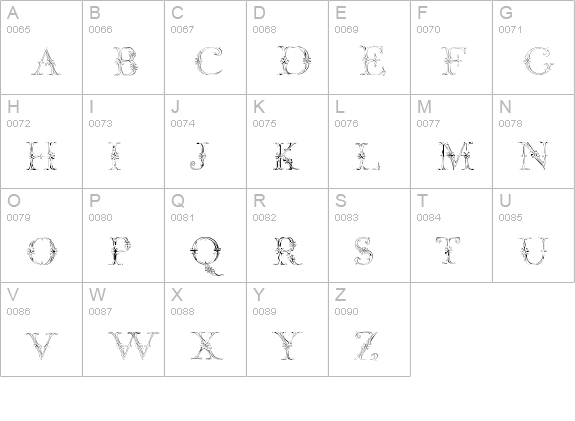
Jaggard Two Font Details
Introducing Jaggard Two, a captivating and versatile font that will leave a lasting impression on any design project. With its unique blend of modern and vintage aesthetics, Jaggard Two is the perfect choice for those seeking a font that stands out from the crowd. This remarkable typeface boasts a wide range of weights and styles, allowing for endless creative possibilities. Whether you're designing a logo, crafting a captivating headline, or creating eye-catching social media graphics, Jaggard Two has you covered. What sets Jaggard Two apart is not only its stunning visual appeal but also its accessibility. This incredible font is freely available to download at FontsMarket.com, ensuring that designers of all backgrounds can experience the magic of Jaggard Two without any limitations. With Jaggard Two, you'll have the freedom to express your creativity and bring your visions to life. Its clean lines, elegant curves, and impeccable legibility make it a perfect choice for both print and digital designs. The attention to detail in each character will captivate your audience and elevate your designs to new heights. Whether you're a seasoned professional or just starting your design journey, Jaggard Two is a font that will never let you down. Its versatility and timeless appeal make it a must-have in any designer's toolkit. Download Jaggard Two today from FontsMarket.com and unlock a world of unlimited possibilities.